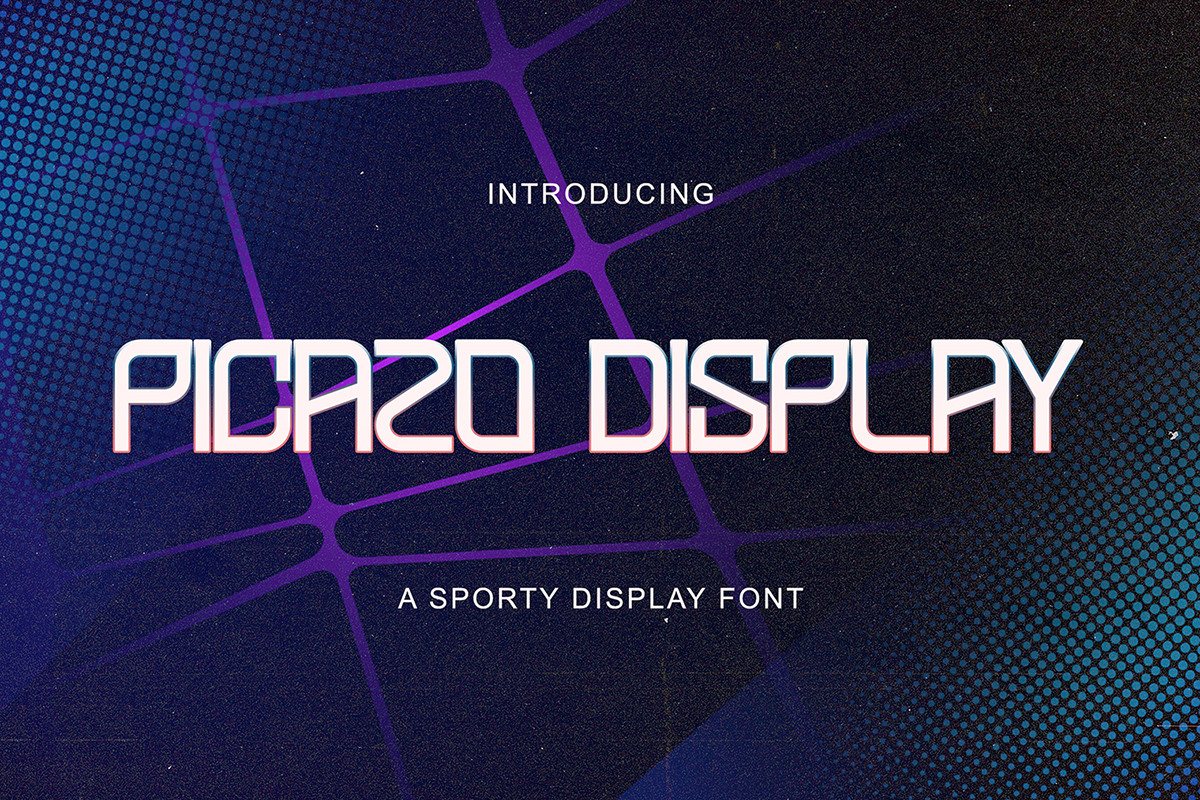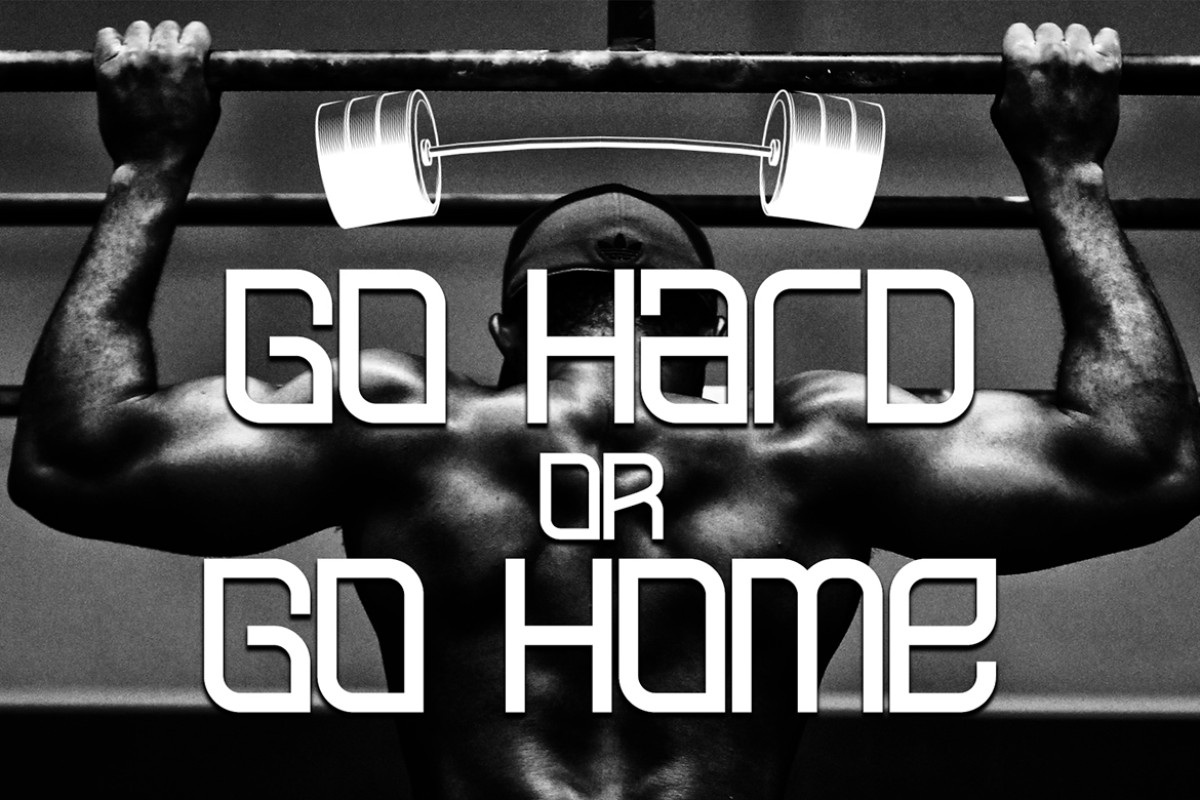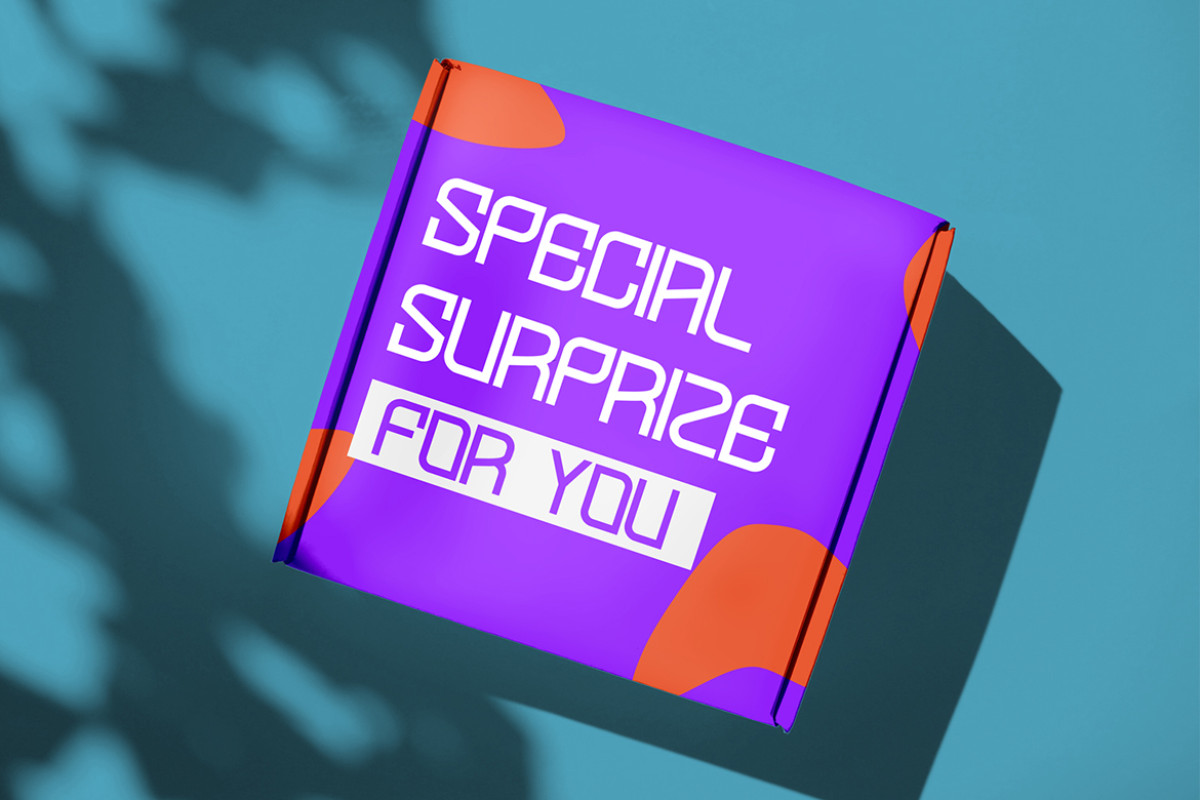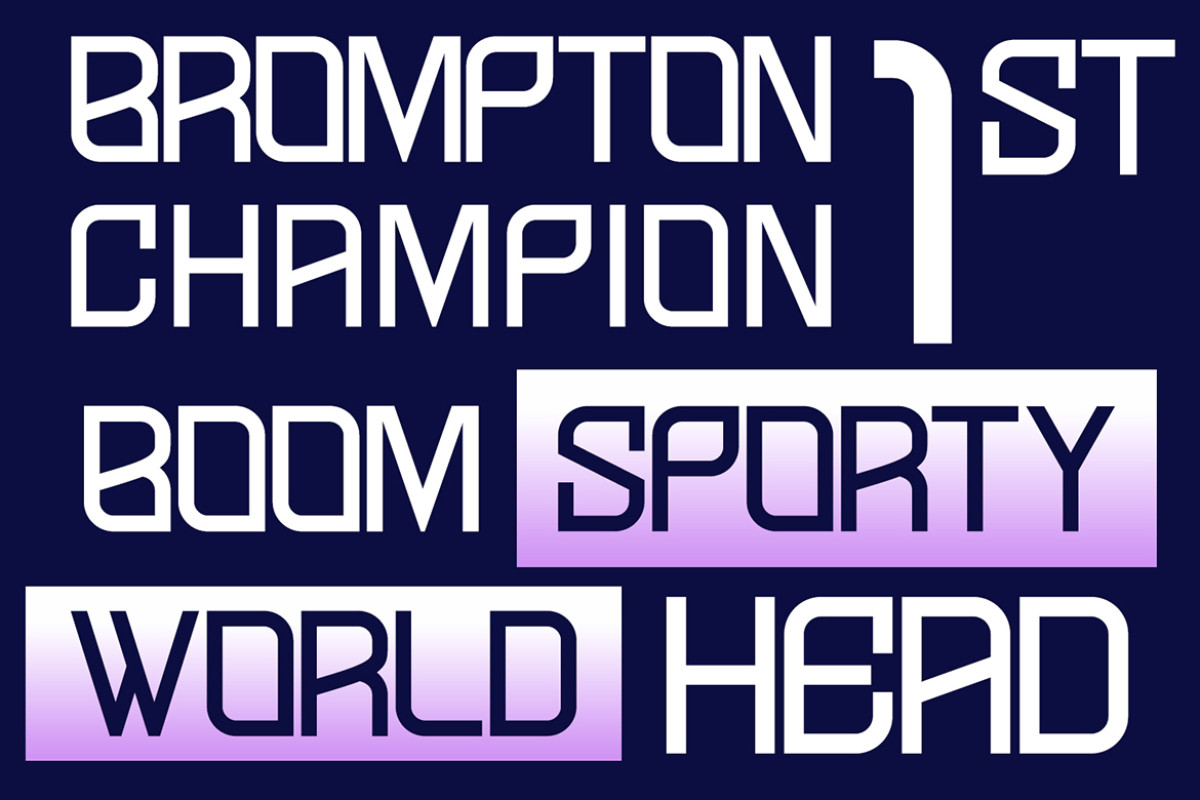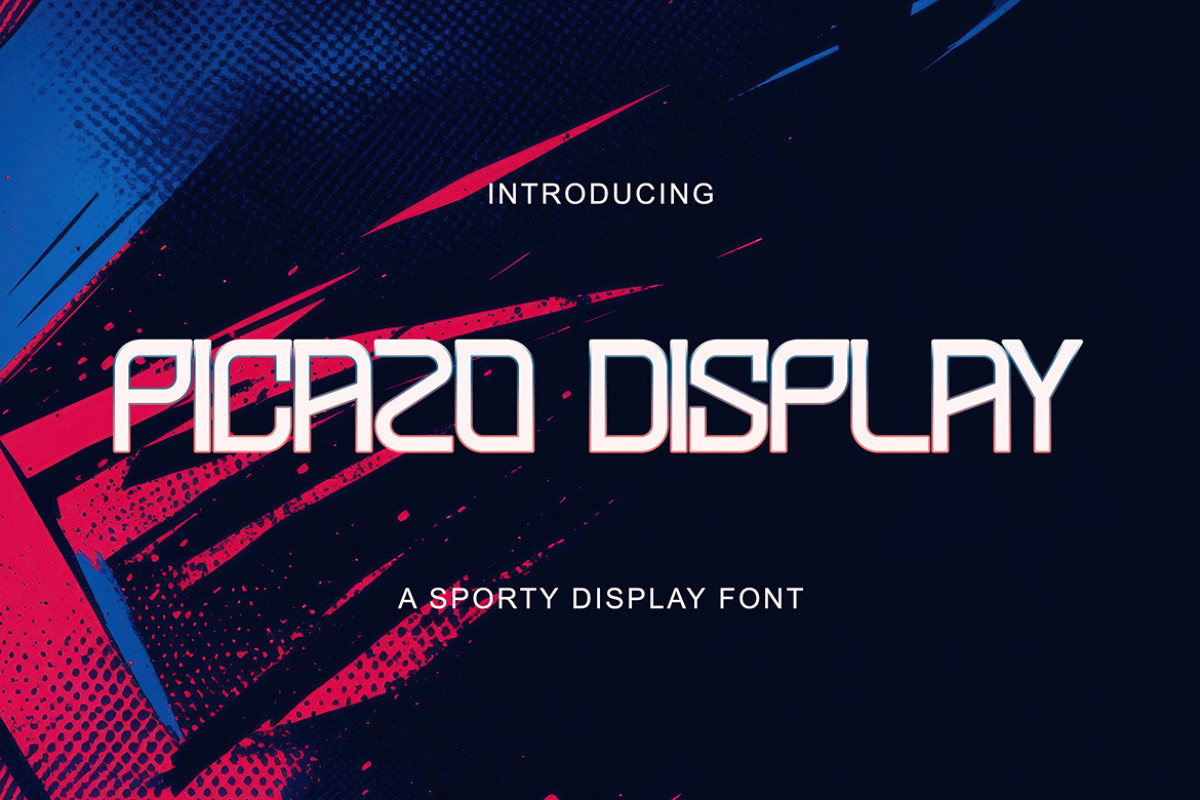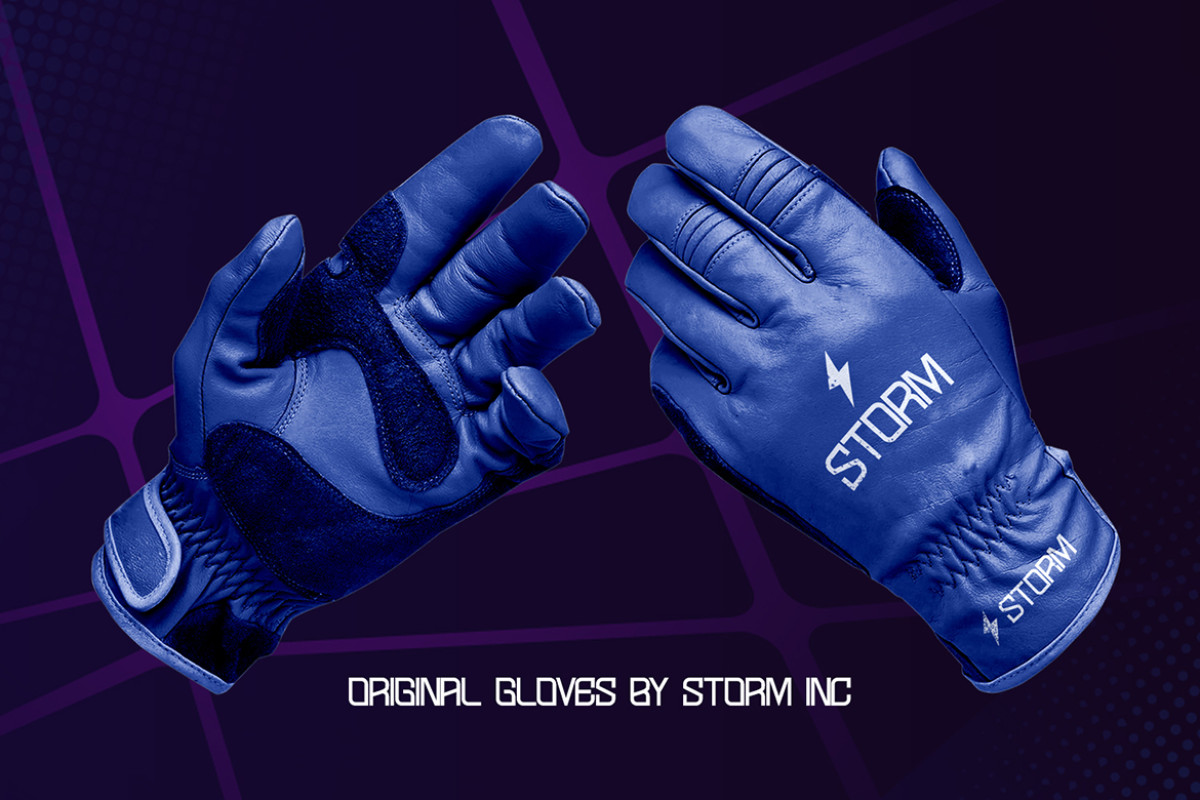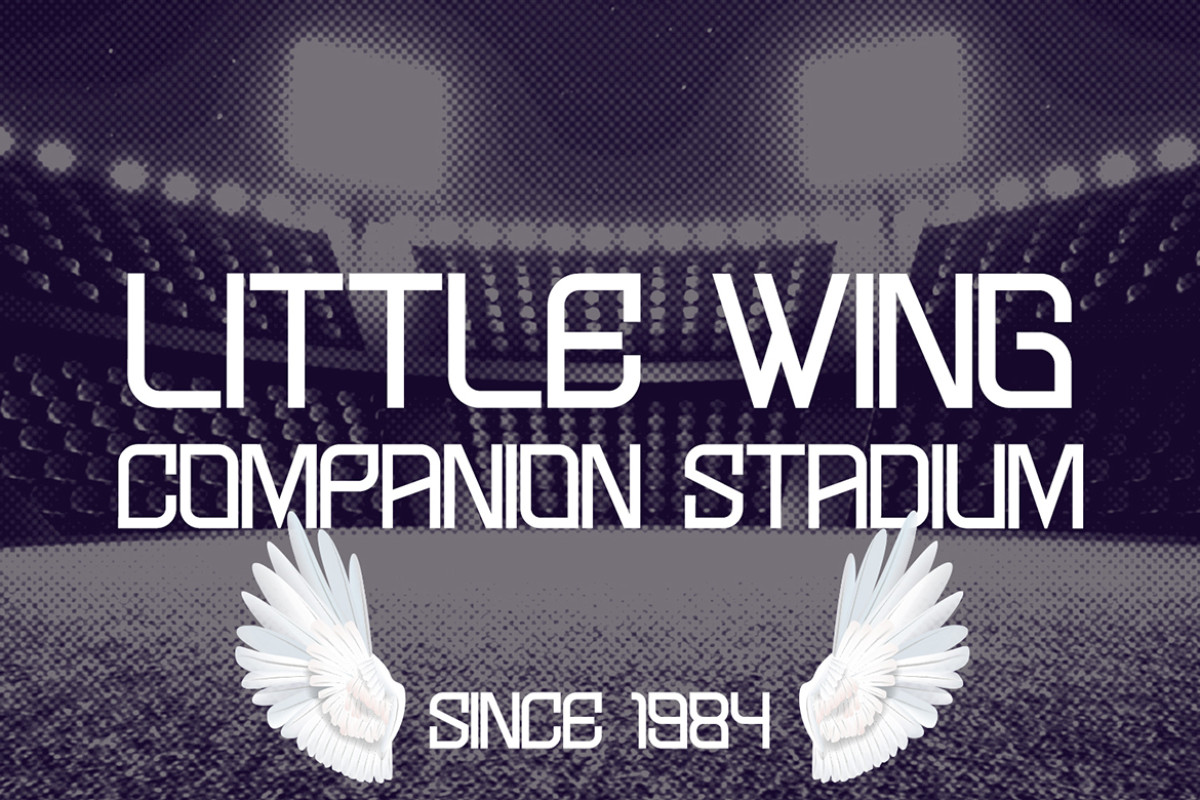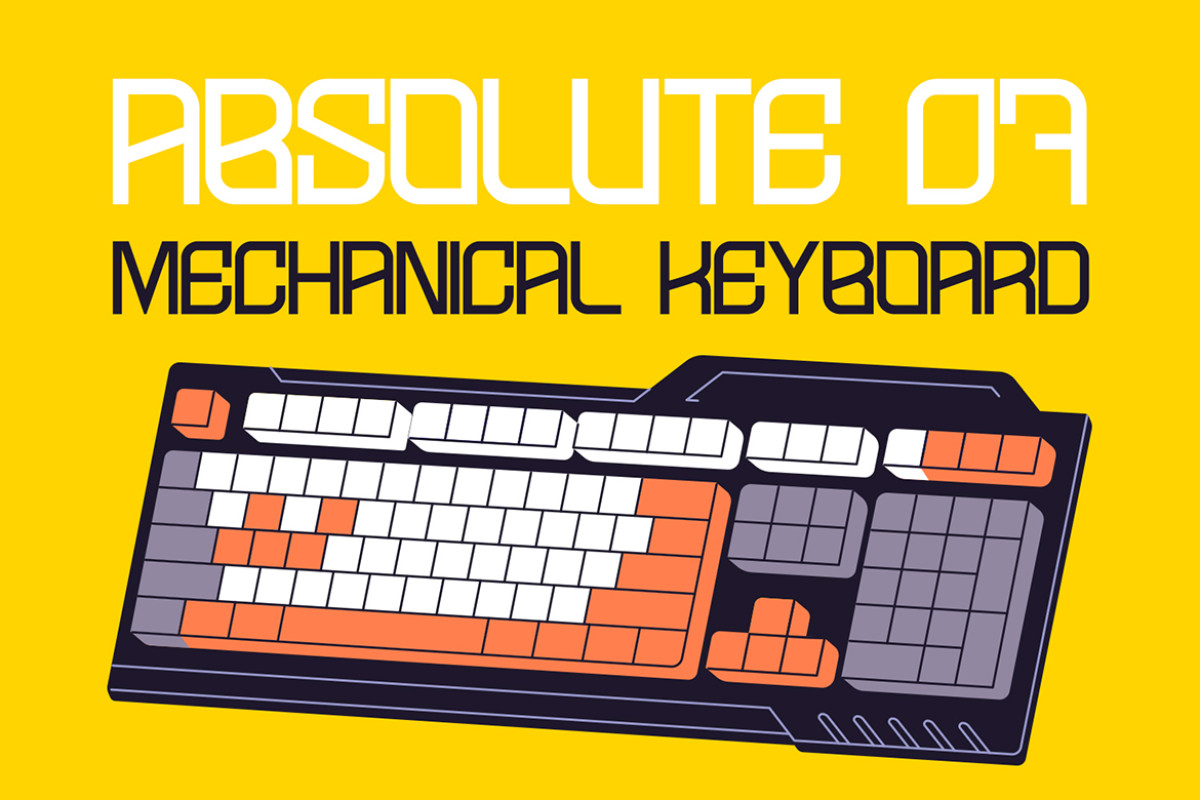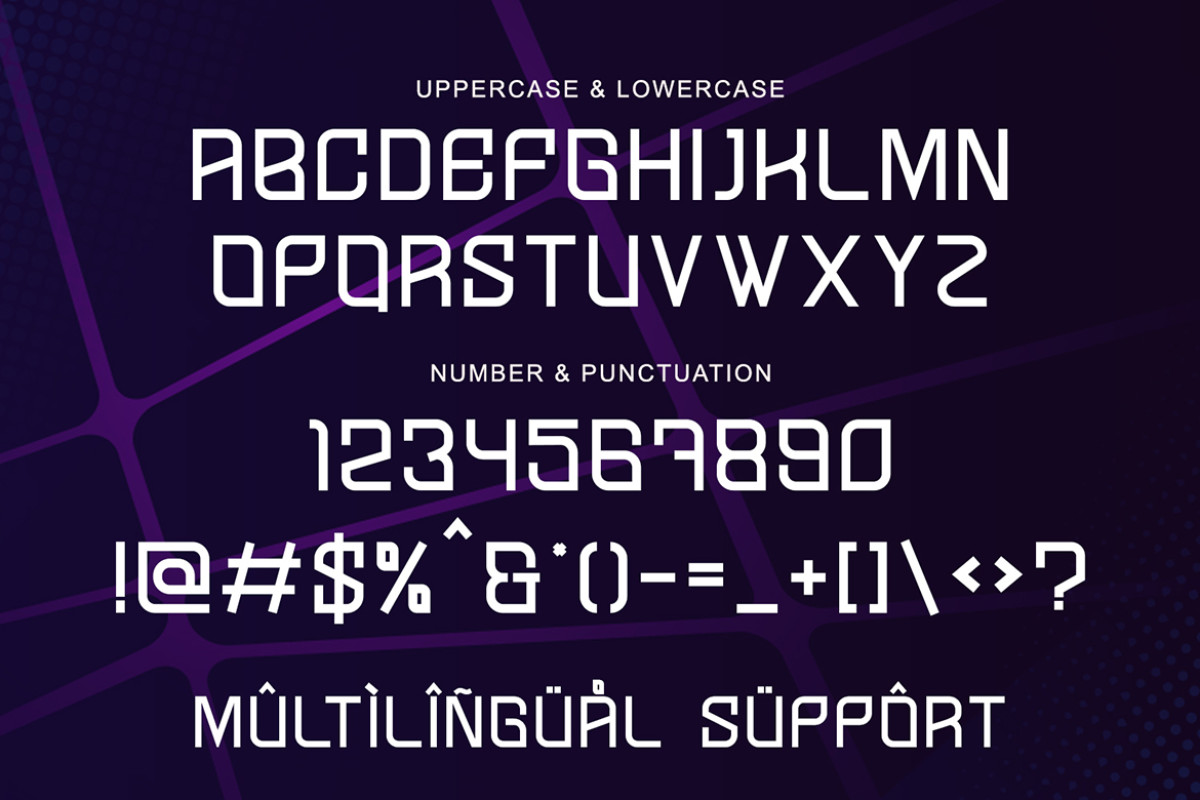
Picazo Display - Sporty Display Font
Simple, Modern, Minimalist, Sporty Display Font
Perfect for Logotype, brand logo, apparel design, clothing, fashion, creative industry, signature, headline/title on poster, brochure, packaging, wedding invitation, quotes, magazine, social media etc.